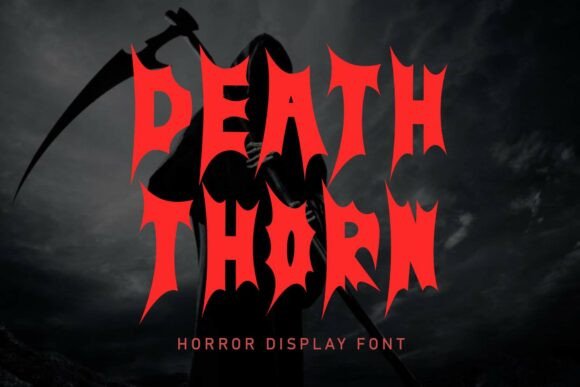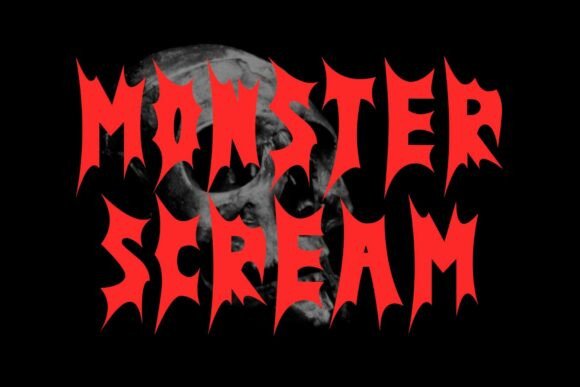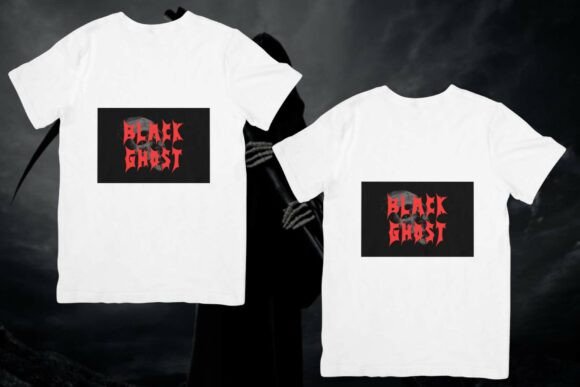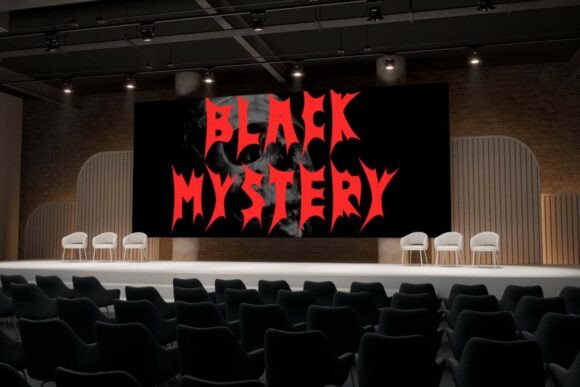
Death Thorn Font: A Spooky Display Font for Halloween Posters!
About the Death Thorn Font
Presenting Death Thorn Font, a unique and stylish typeface that will make your work stand out. “Death Thorn” is a spooky and unique display font. This font has thorns on each letter and is equipped with uppercase, lowercase, numerals, punctuations and multilingual support. Very suitable for posters, banners, branding, stickers, logos, prints, halloween, summer, spring, easter and others.
Death Thorn excels as a display font for headlines, logos, and short, impactful text in posters and branding materials. Its unique character is ideal for projects with a gothic, rebellious, or slightly sinister aesthetic. Avoid using it for body text or long paragraphs; its highly decorative nature makes it unsuitable for extended reading.
Pairing Death Thorn effectively requires a contrasting typeface to balance its strong personality. A clean sans-serif like Open Sans or a minimalist geometric font like Futura would provide a sophisticated counterpoint. For a more dramatic effect, consider pairing it with a classic serif like Garamond or a slightly more ornate script font, but use sparingly to avoid overwhelming the design.
The font’s core personality is bold and dramatic, conveying a sense of mystery and edginess. It’s best suited for brands or projects that aim for a memorable, unconventional, and impactful visual identity.
Death Thorn Font Usage Examples
Death Thorn Font Example